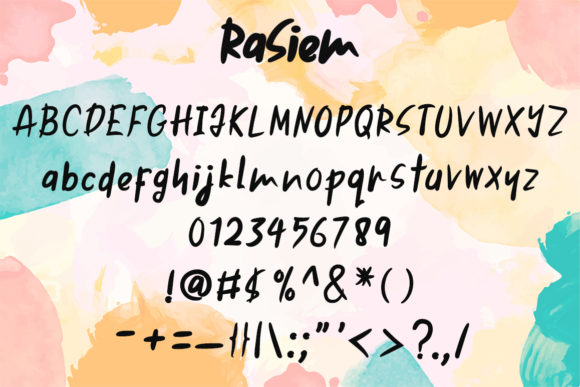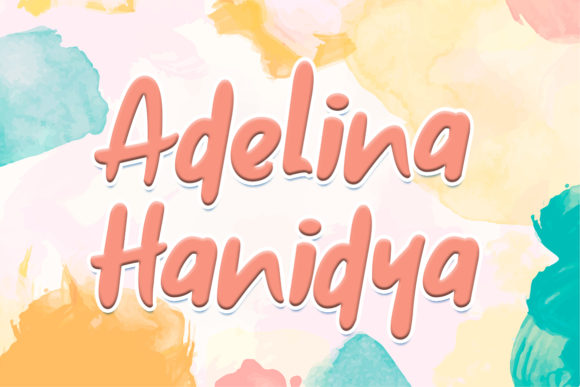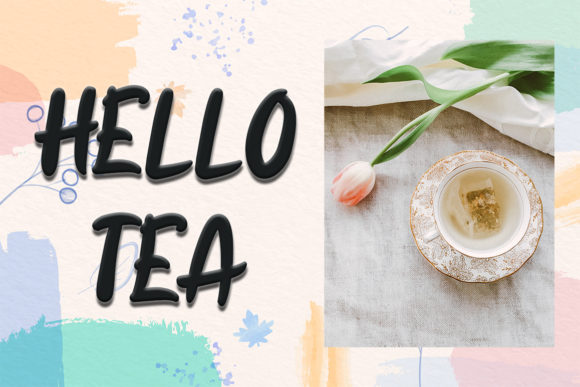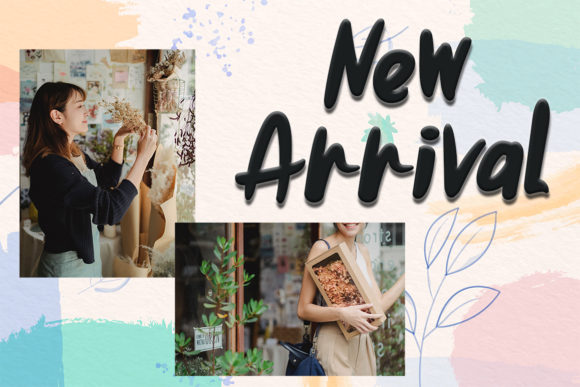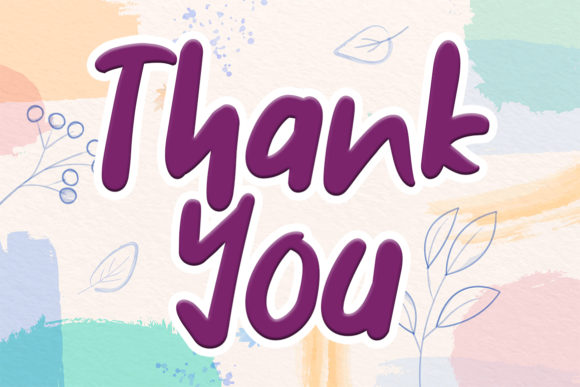
Introduction to Rasiem Font
Have you ever found yourself staring at a blank canvas, waiting for inspiration to strike? It’s a moment every designer knows all too well. But what if I told you that the perfect spark is just a click away? For those who crave a touch of whimsy and personality in their designs, the Rasiem Font is here to bring your creative vision to life.
This charming handwritten font is a treasure trove of possibilities, waiting to be unleashed on your next project. With its high-quality design and transparent background, Rasiem Font is a valuable resource for designers seeking to add a personal touch to their work. Whether you’re crafting a beautiful wedding invitation or creating eye-catching social media posts, this versatile font is sure to elevate your designs to new heights.
Rasiem Font
- Comes in a single font style, ideal for projects requiring a clean and minimalist aesthetic.
Honest Review: Rasiem Font
As a designer, I’m always on the lookout for high-quality design resources that can elevate my creative projects. Recently, I stumbled upon the Rasiem Font, and I’m excited to share my honest review.
What works well: ✨ The Rasiem Font has a unique, modern design that’s perfect for a variety of projects. The font is available for free download, which is a huge plus for designers on a budget. The transparent background option is also a great feature, allowing me to easily integrate the font into my designs.
- Unique, modern design
Limitations: ⚠️ While the Rasiem Font is a great addition to any designer’s toolkit, it’s not without its limitations. The font is only available in a limited number of weights, which may not be ideal for designers who need more flexibility in their font choices.
Overall impression: I’m impressed with the Rasiem Font’s high quality and versatility. While it may not be the perfect font for every project, it’s definitely worth considering for designers looking for a unique and modern design element. With a little creativity, the Rasiem Font can be a valuable asset for any creative project.
Rasiem Font
Rasiem Font is a high-quality design resource perfect for creative projects. Its transparent background allows for seamless integration into various backgrounds.
Tips for Getting the Most Out of Rasiem Font
For optimal results, experiment with different font sizes and combinations to create visually appealing designs.
Rasiem Font is ideal for:
Alternatives to Rasiem Font
The Great Vibes Font is a high-quality, handwritten font perfect for creative projects that require a touch of elegance. It’s ideal for use in logos, headings, and titles, and its transparent background makes it easy to layer over other design elements. When to use: For a unique, handcrafted look in design projects.
Comparison to Rasiem Font: Great Vibes Font has a more elegant and refined feel, while Rasiem Font has a more playful and quirky vibe.
The Alex Brush Font is a high-quality, script font that’s perfect for use in creative projects that require a touch of sophistication. It’s ideal for use in headings, titles, and body text, and its transparent background makes it easy to layer over other design elements. When to use: For a luxurious and elegant look in design projects.
Comparison to Rasiem Font: Alex Brush Font has a more refined and elegant feel, while Rasiem Font has a more playful and casual vibe.
The Pacifico Font is a high-quality, serif font that’s perfect for use in creative projects that require a touch of sophistication. It’s ideal for use in body text, headings, and titles, and its transparent background makes it easy to layer over other design elements. When to use: For a classic and elegant look in design projects.
Rasiem Font is designed with high-quality in mind, with a resolution of 1024×1024 pixels. This high-resolution design ensures that the font looks crisp and clear, even when used in large sizes or on high-resolution displays. The transparent background option also allows for easy integration into your design, making it perfect for creative projects that require a high level of detail.